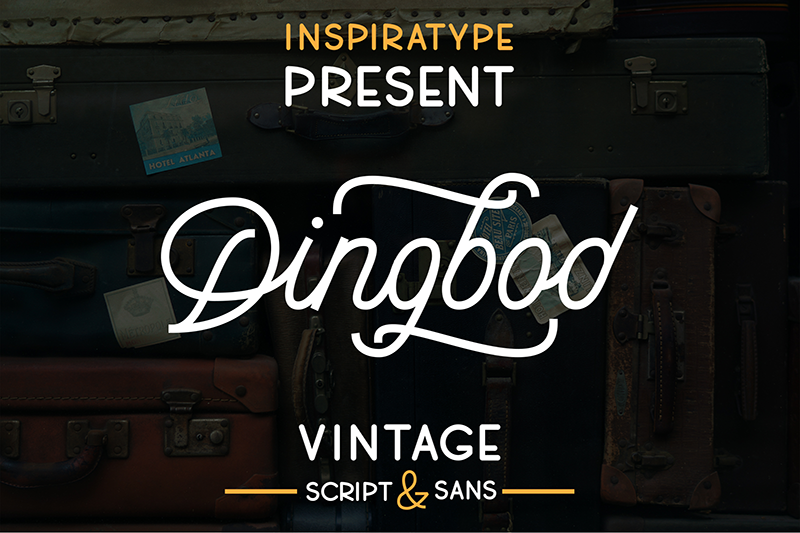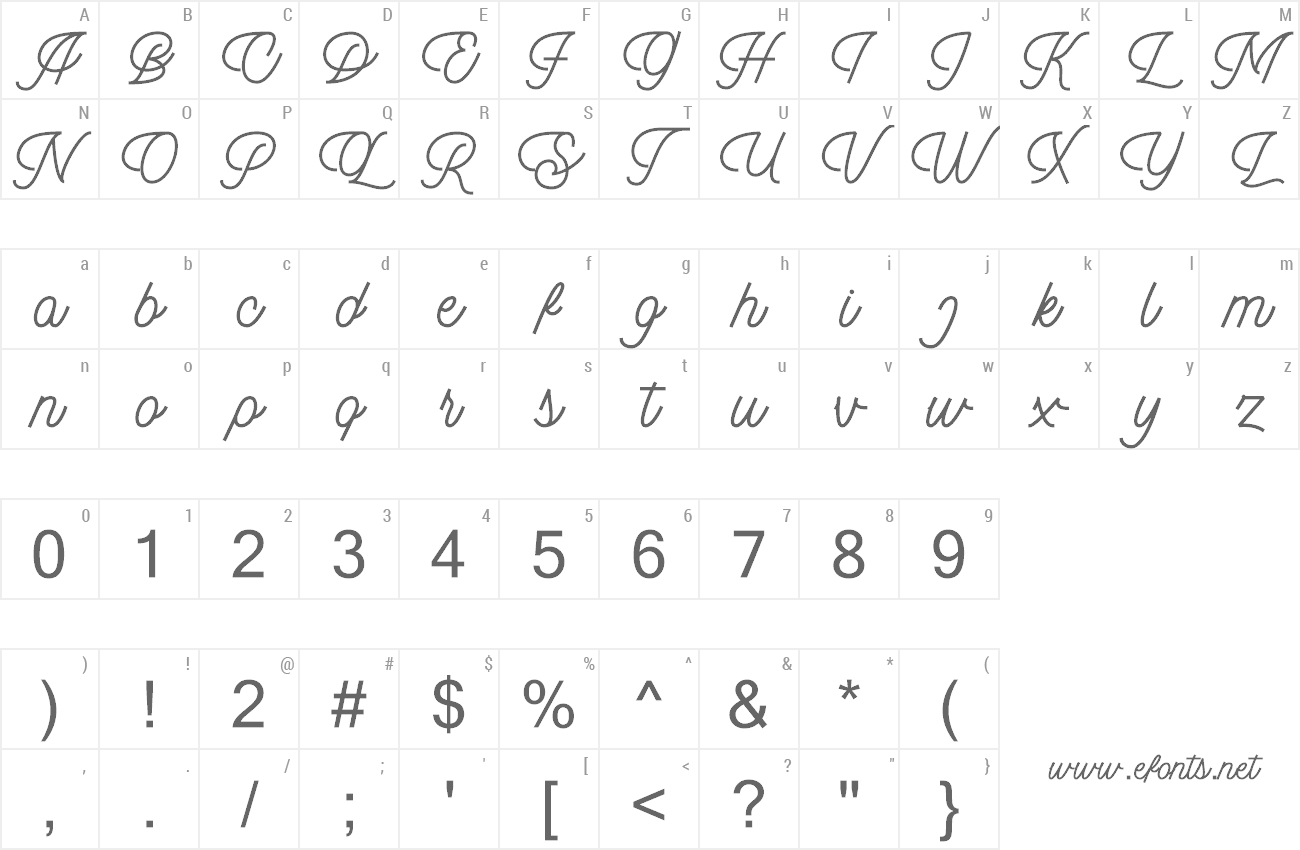
Font name: | Dingbod Script |
Author: | InspiraType |
Note by InspiraType | |
"Dingbod Duo" is a font display is made by hand, inspired by classic posters. comes with uppercase, lowercase, numerals, punctuations and so many variations on each characters include opentype alternates, common ligatures and also additional swash to let you customise your designs. Perfect to use for Logotype, Letterhead, Poster, Apparel Design, Label and etc. |